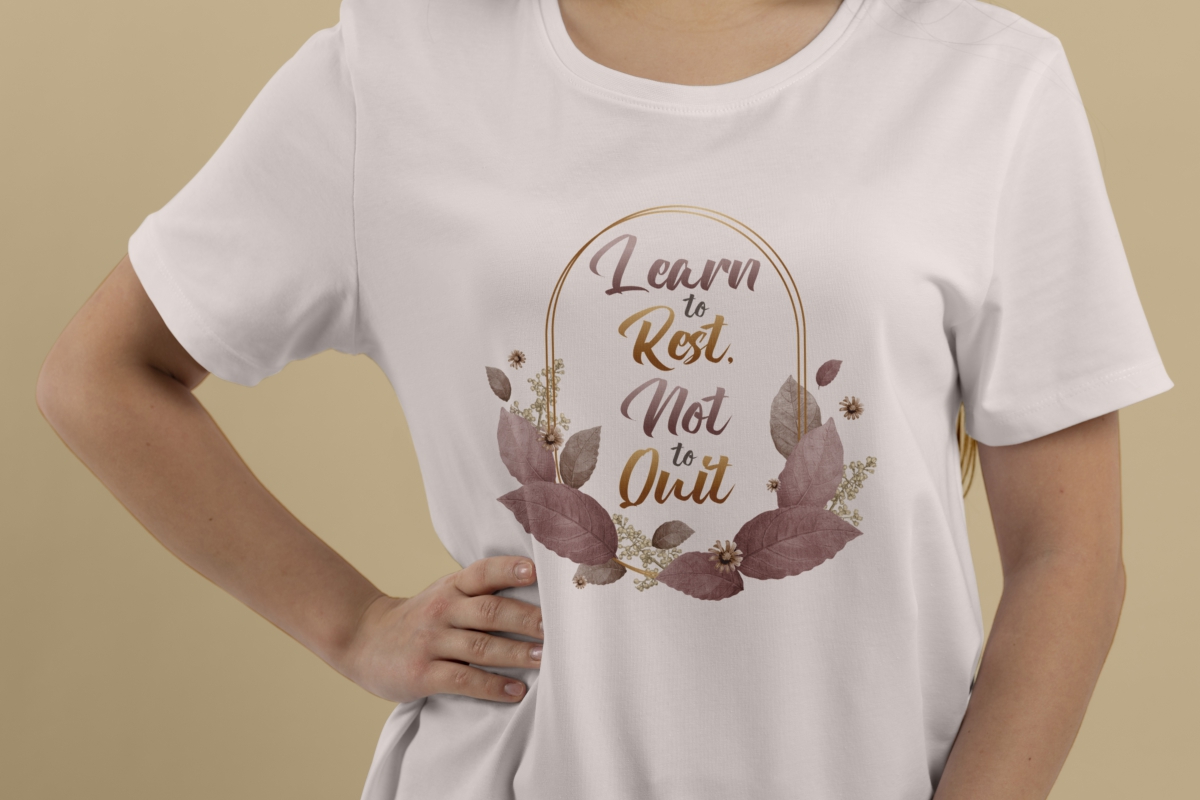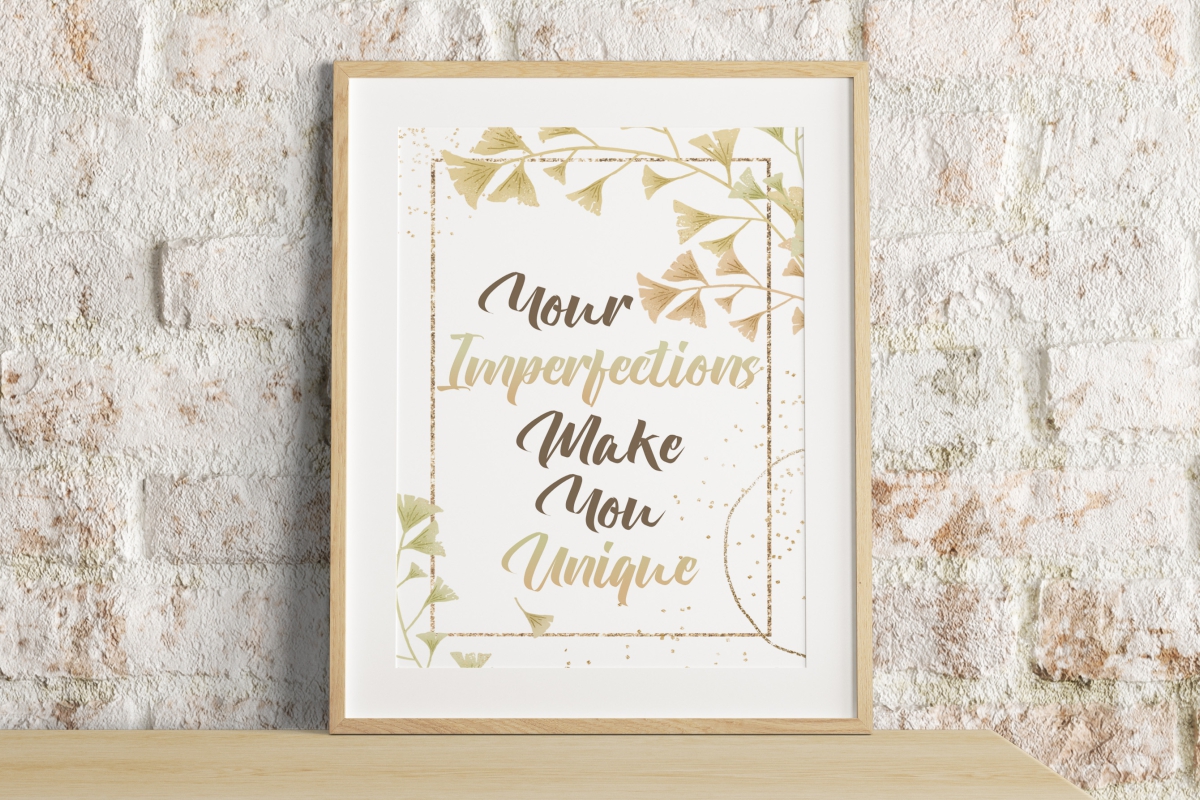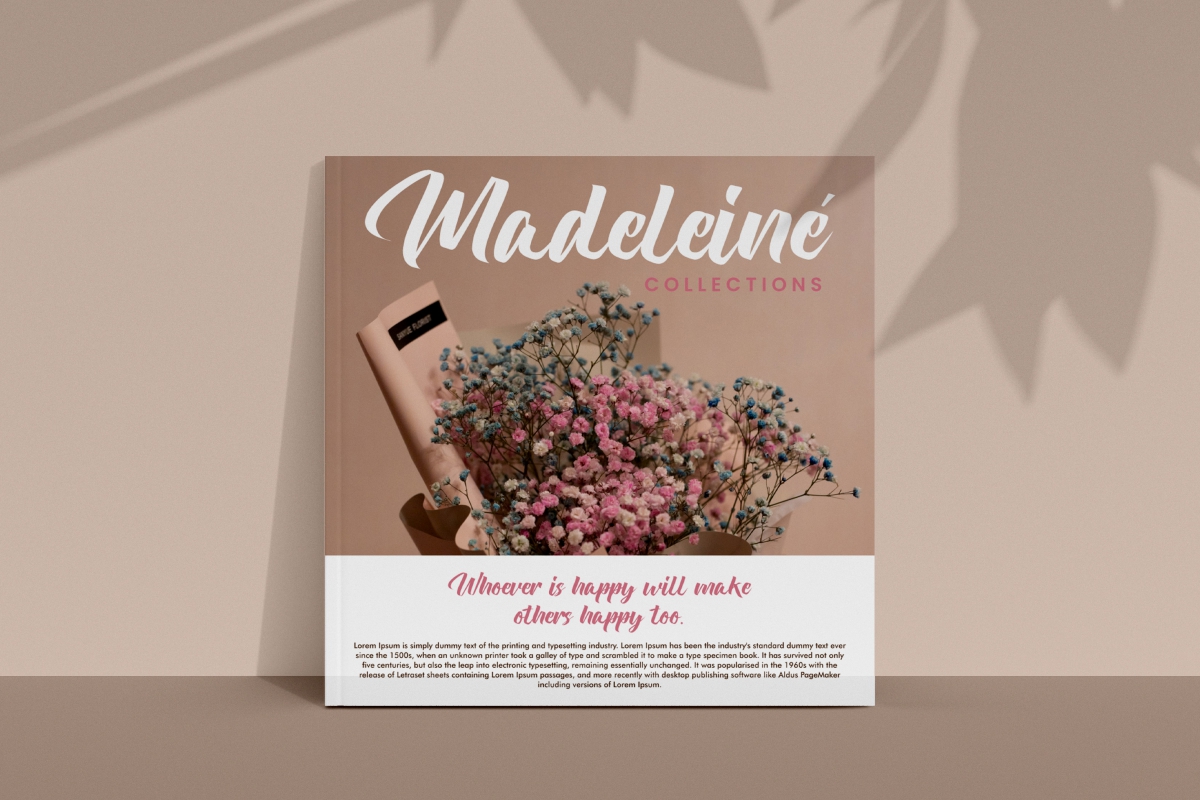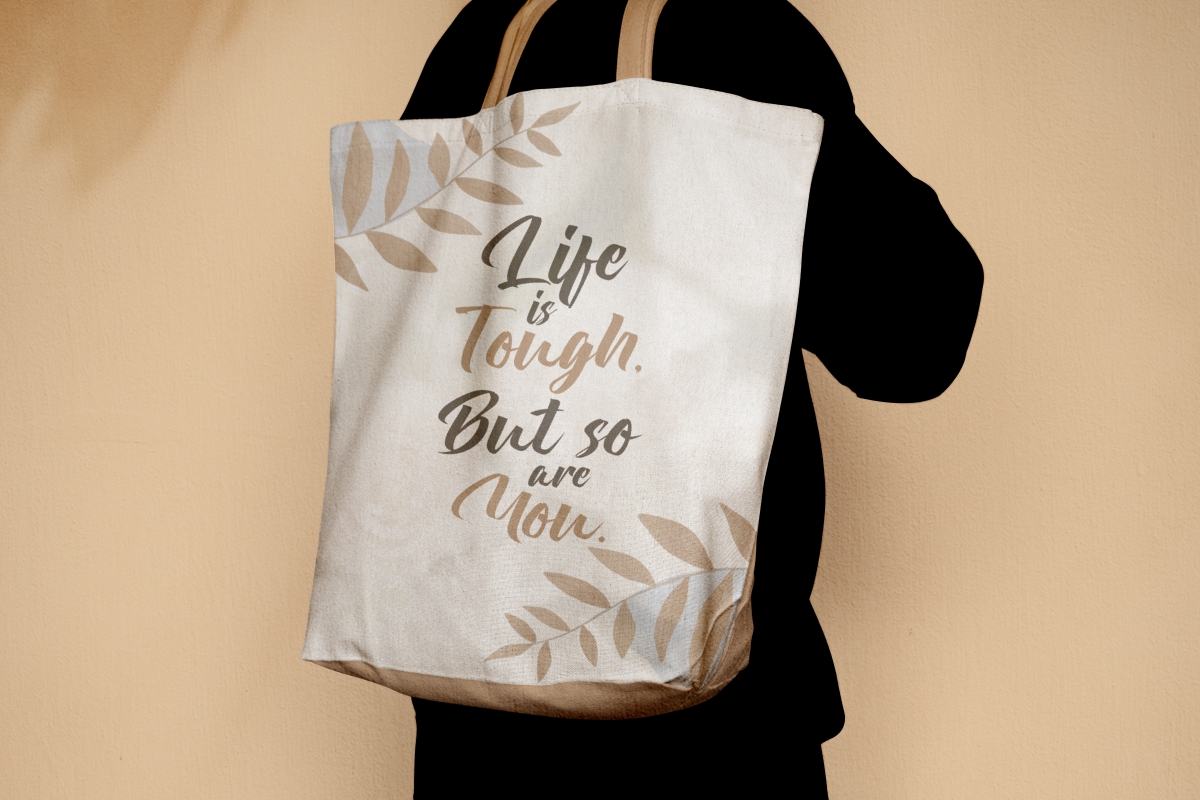
The Backhander Font
The Backhander Script Font is an elegant calligraphy script with bold stylish look, created by CalligraphyFonts. This font is perfectly thickness and easy to read that will suit any business industry, including: art gallery, spa and salon, cosmetic, fashion, florist, restaurant, and anything that requires a stylish script look.